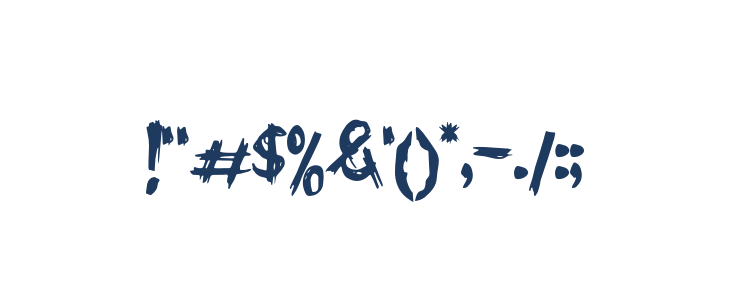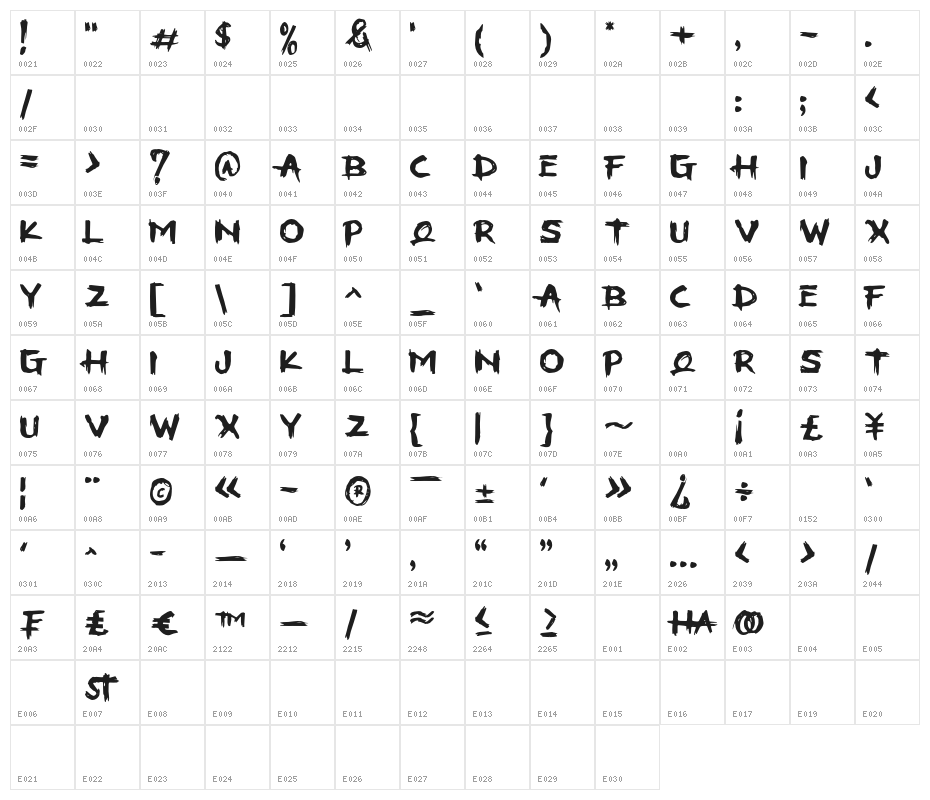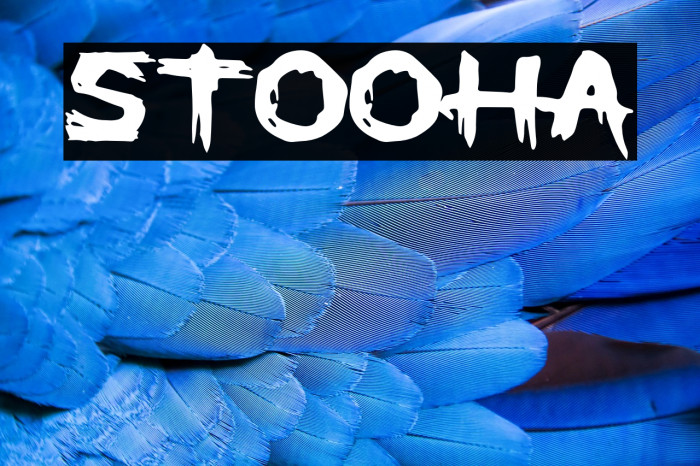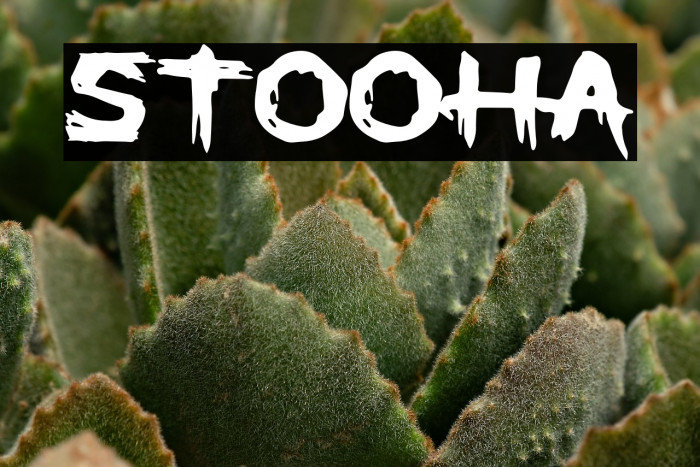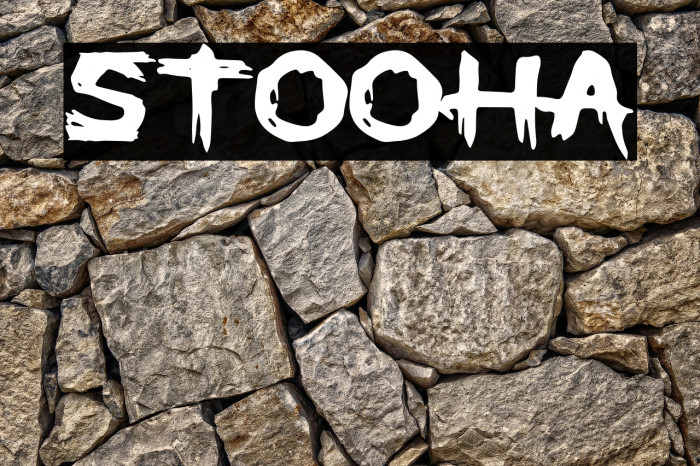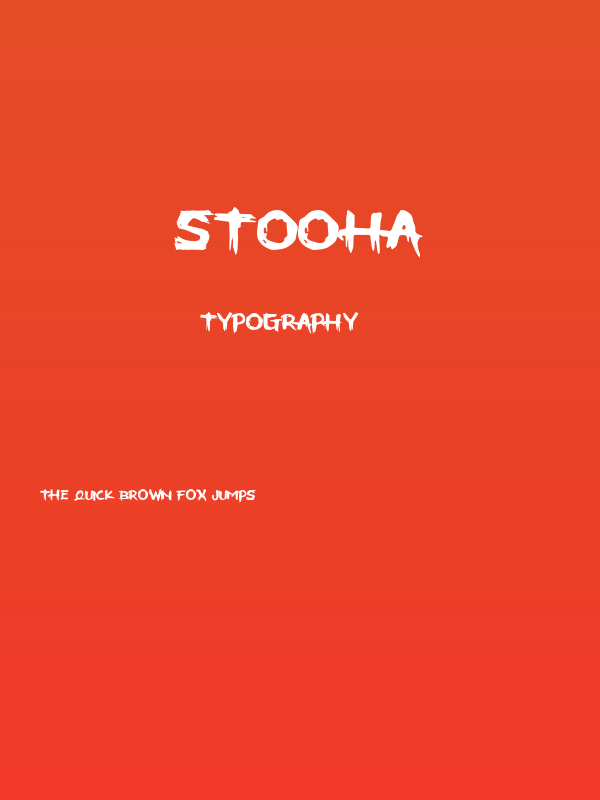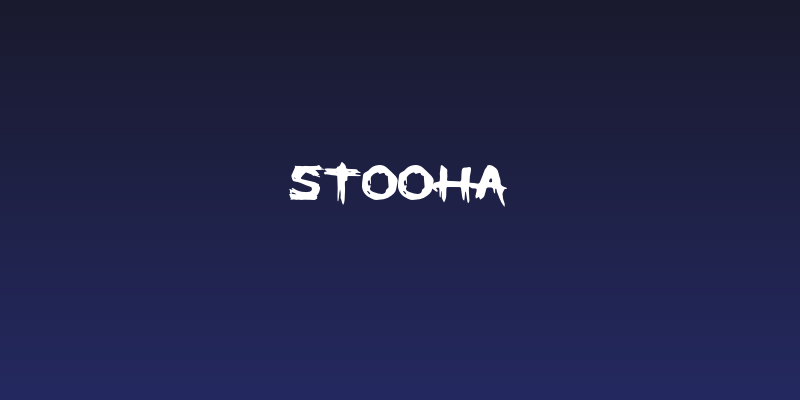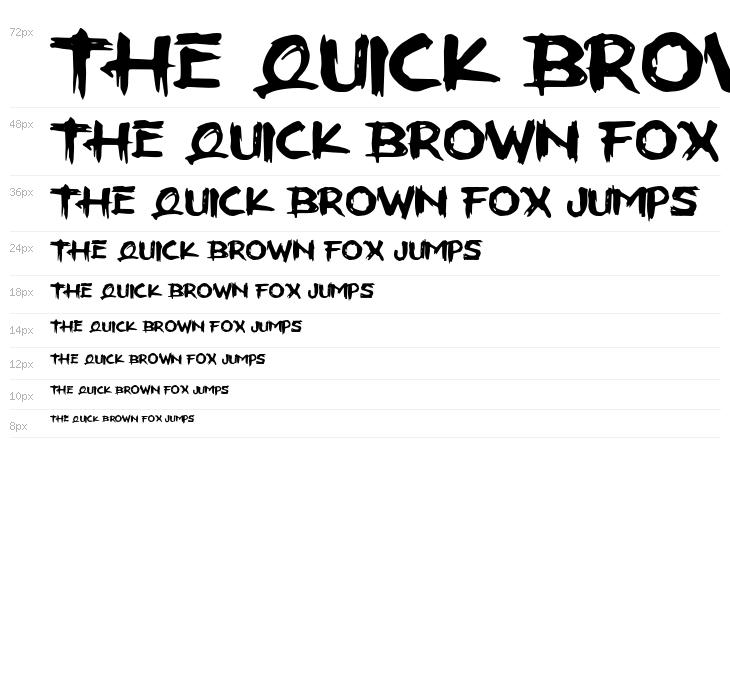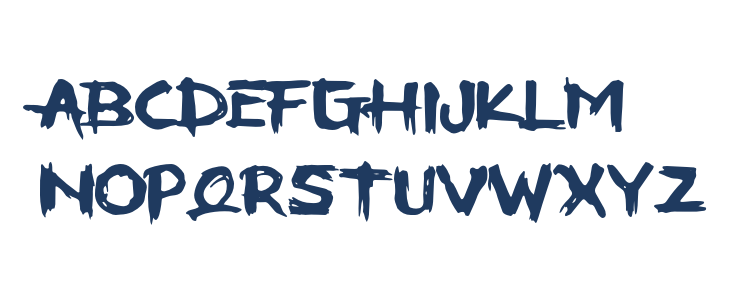
STOOHA Font
STOOHA Description
This font is characterized by its bold, brush-like strokes that give it a dynamic and energetic appearance. The letters have a rough, hand-painted look, with uneven edges and varying thicknesses that add to its expressive style. The uppercase and lowercase letters maintain a consistent style, with a slightly condensed form that enhances its boldness. The numbers and special characters follow the same aesthetic, ensuring a cohesive look across all glyphs. This font's unique style makes it stand out, perfect for projects that require a strong visual impact.